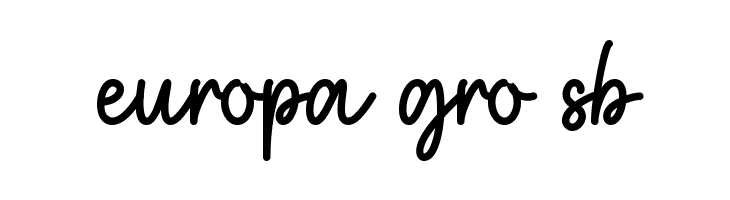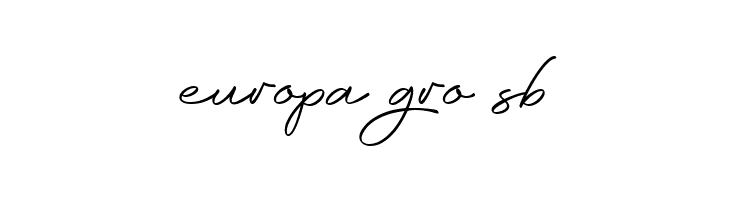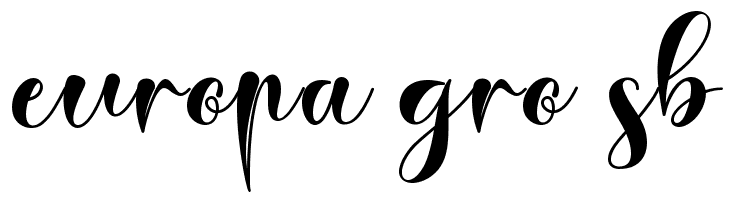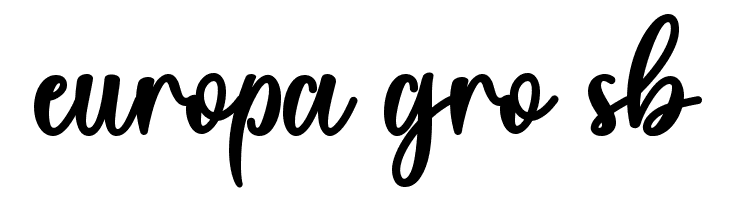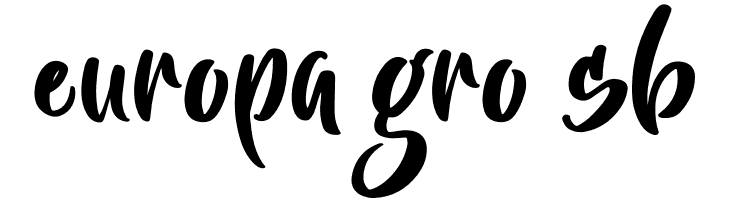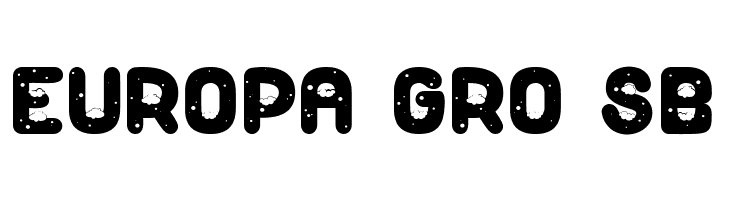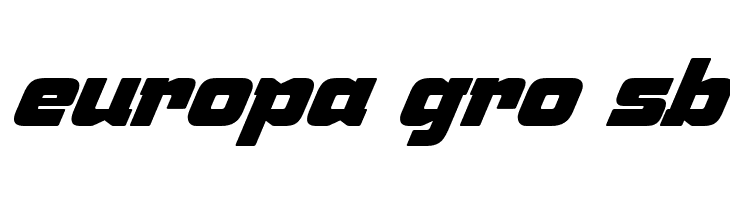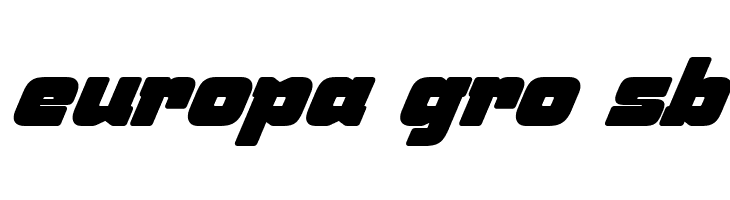
A playful, handwritten font with smooth, flowing lines and a casual style.
An elegant, cursive font with flowing, handwritten style.
A festive, cursive font with elegant loops and swirls, perfect for holiday designs.
A bold, playful script font with a lively, handwritten style.
A bold, fluid script font with dynamic curves and expressive flourishes.
A lively, handwritten font with flowing cursive letterforms.
A festive, bold font with snow and Santa hat accents, perfect for holiday themes.
A bold, dynamic font with a playful, striped design.
A bold, italicized font with angular lines and a dynamic, modern style.
A bold, angular font with a dynamic, forward-leaning design.